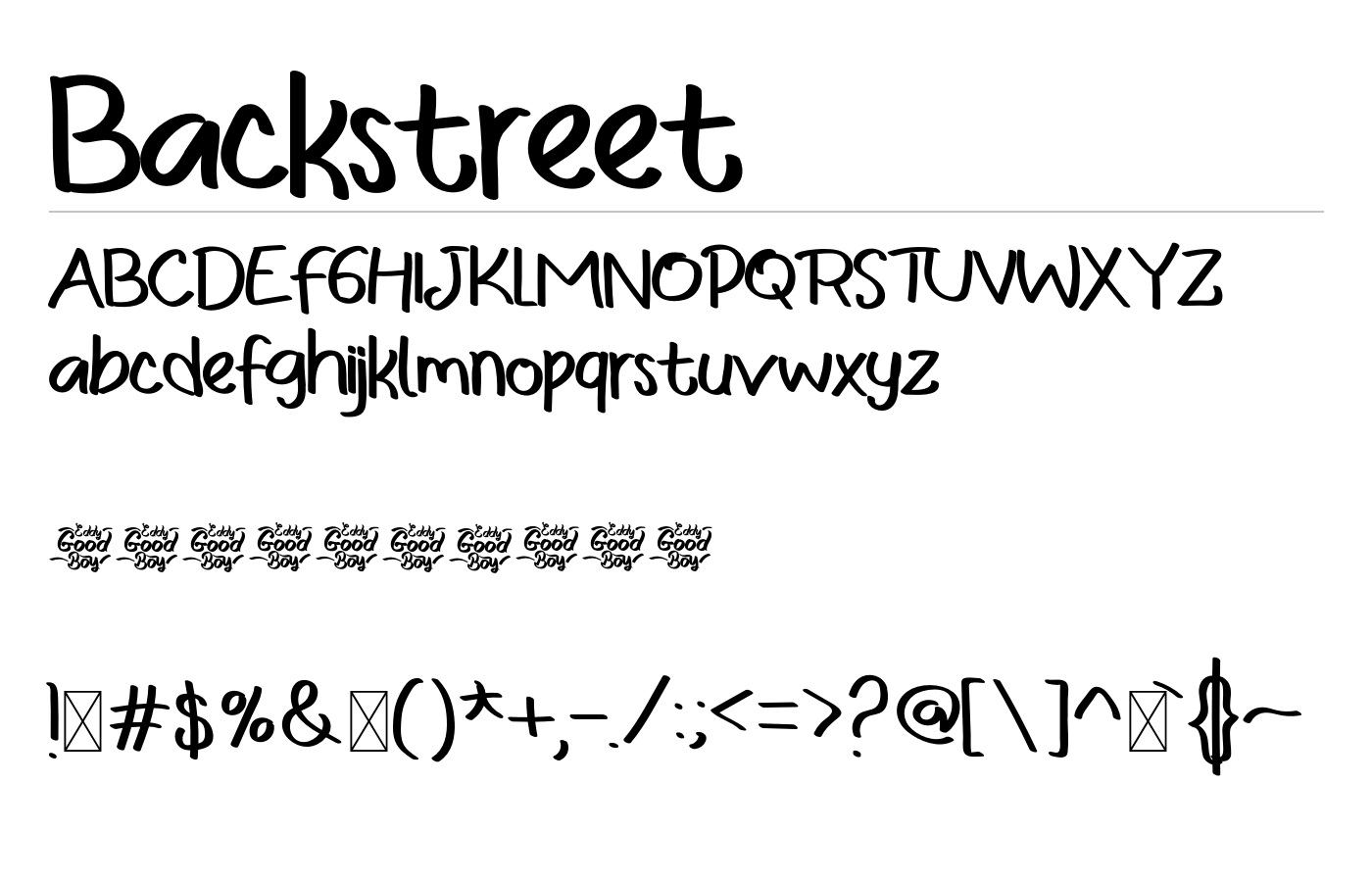
Backstreet Font is a playful and casual handwritten sans serif typeface with a warm, friendly character. It features moderately tall x-heights, smooth and irregular strokes that mimic natural handwriting, and balanced spacing that keeps it readable and inviting. This font is ideal for informal designs like children's books, casual branding, and creative projects seeking a personal, approachable feel.
Backstreet Font
About Backstreet Font
| Font family | Backstreet Font |
| Designer | Nur Edi Prayitno |